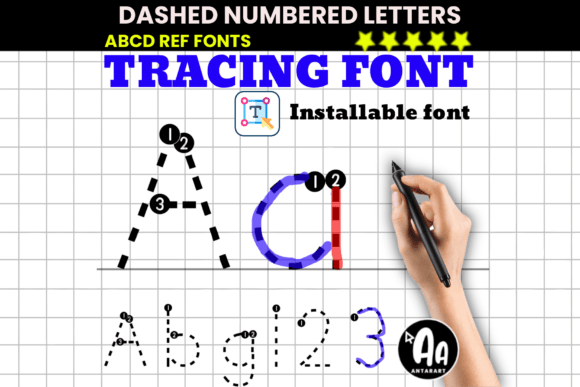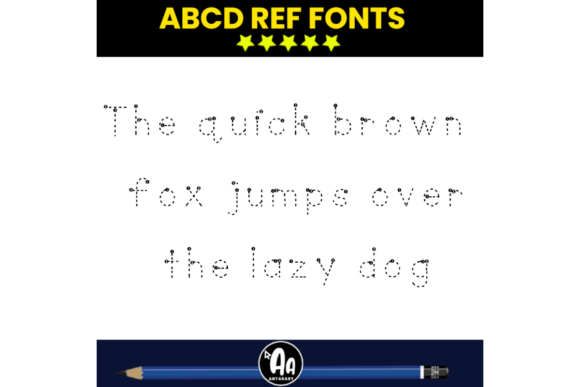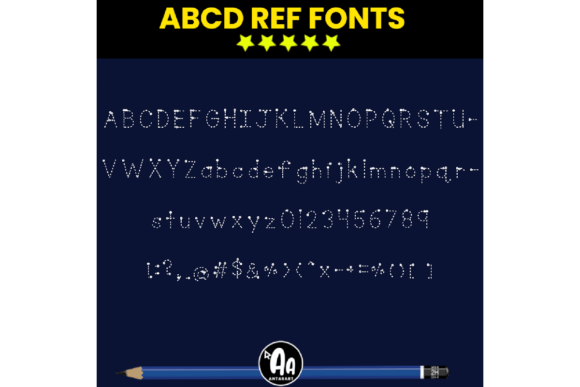
Unlocking Perfect Handwriting: The Power of Dashed Numbered Letters Tracing Font
Remember those magical moments when you first mastered the art of writing your name, or the satisfaction of creating your first masterpiece with colorful markers? For many of us, those early creative moments sparked a lifelong love affair with art and self-expression. As we grew older, we may have forgotten the simple joys of putting pen to paper, but the foundation we laid in those early years remains essential for our creative journey. A crucial part of this journey is proper handwriting, a skill that’s both functional and aesthetically pleasing.
Enter the Dashed Numbered Letters Tracing Font, a game-changing tool designed to help students master the art of handwriting through a clear and structured approach. This innovative font features dashed strokes combined with numbered indicators to teach the correct stroke order, promoting strong handwriting habits, reinforcing muscle memory, and building confidence as learners transition from tracing to independent writing. As a designer, you’ll appreciate the value of this font in creating interactive worksheets that combine structure with creativity.
Dashed Numbered Letters Tracing Font Key Features
- Font Type: Handwritten, Tracing Font
- Font Size: Available in 4 different sizes: 24px, 36px, 48px, 60px
- Resolution: High-resolution fonts suitable for print and digital use
- Unique Characteristics: Dashed lines and numbered letters make it ideal for tracing and handwriting practice, especially for children and individuals with dysgraphia
Designer Review: Dashed Numbered Letters Tracing Font
I’ve had the chance to play around with the “Dashed Numbered Letters Tracing Font”, and here’s my honest take.
- The unique dash design adds an educational twist to the classic numbered font, making it perfect for tracing and learning activities.
- The font is well-structured, with each number having a clear and distinct design that’s easy to recognize.
- The dash design also makes it easy to create visual connections between numbers, which is great for teaching concepts like sequence and pattern recognition.
- The font is quite limited in its application, as it’s mainly suited for educational purposes. It may not be the best choice for creative or artistic projects.
- The dash design can be overwhelming if used in large quantities, making it difficult to read and understand the numbers.
Overall, I think the “Dashed Numbered Letters Tracing Font” is a solid choice for educational projects, but it may not be the best fit for more creative endeavors. With some careful planning and use, it can be a valuable tool for teaching and learning.
Dashed Numbered Letters Tracing Font: A Practical Application Guide
In PowerPoint or Word, select the ‘Dashed Numbered Letters Tracing Font’ from the font library and use it to create custom text boxes. To get the most out of this font, use it in combination with other design elements, such as images and shapes, to create engaging presentations and documents.
The Dashed Numbered Letters Tracing Font is suitable for a variety of applications, including:
- Children’s educational materials
- Designing for young audiences
- Creating custom graphics and illustrations
Alternatives to Dashed Numbered Letters Tracing Font
1. Hand Drawn Numbers Font
The Hand Drawn Numbers Font is a creative alternative to Dashed Numbered Letters Tracing Font. It features handwritten numbers with a personal touch, making it perfect for designs that require a human element. Use it for children’s books, educational materials, or any project that needs a friendly and approachable feel.
Compared to Dashed Numbered Letters Tracing Font, Hand Drawn Numbers Font is more playful and informal, making it suitable for a wider range of applications.
2. Simple Dotted Number Font
The Simple Dotted Number Font is a clean and minimalist alternative to Dashed Numbered Letters Tracing Font. It features simple, dotted numbers that are easy to read and recognize. Use it for designs that require a clear and concise font, such as infographics, charts, or presentations.